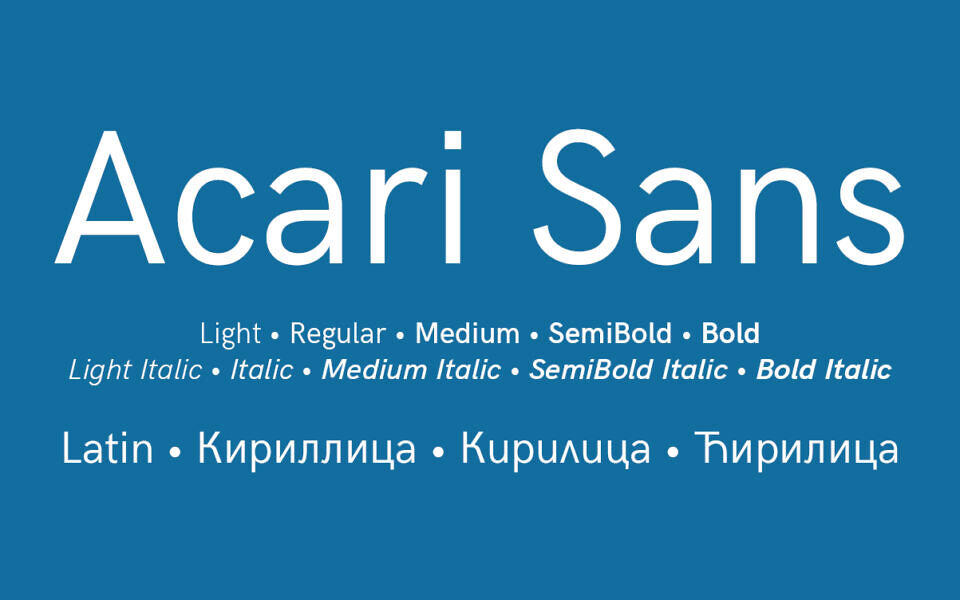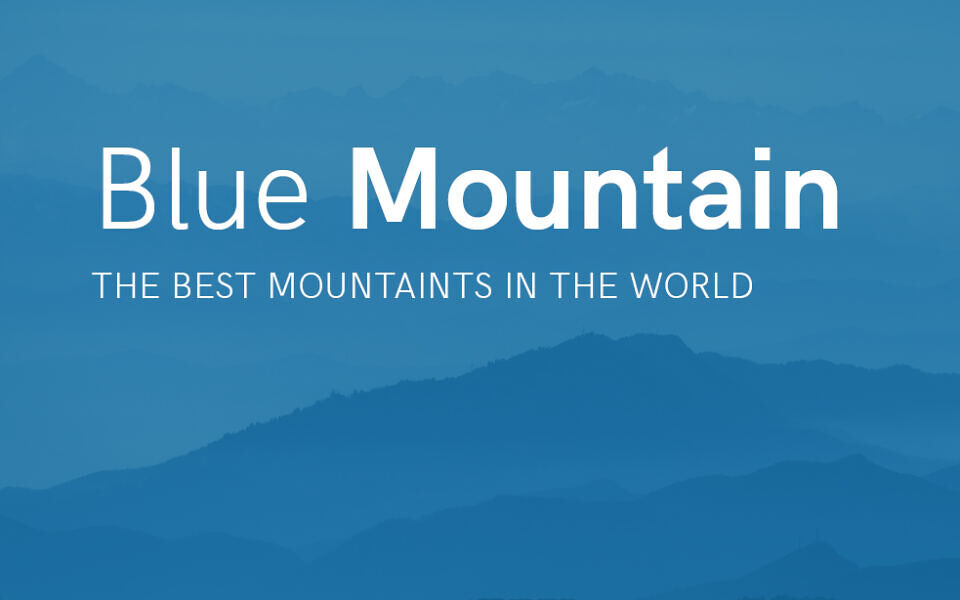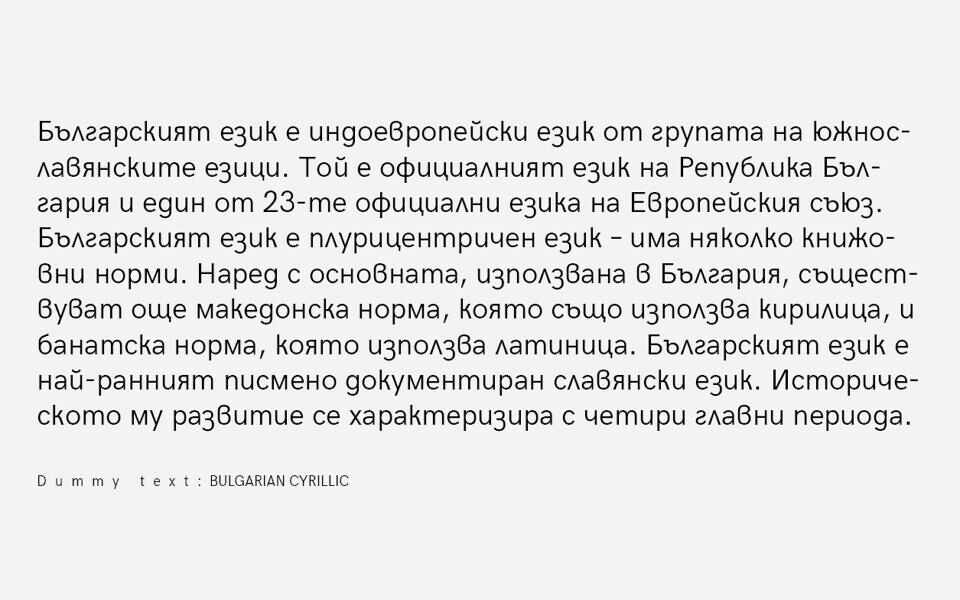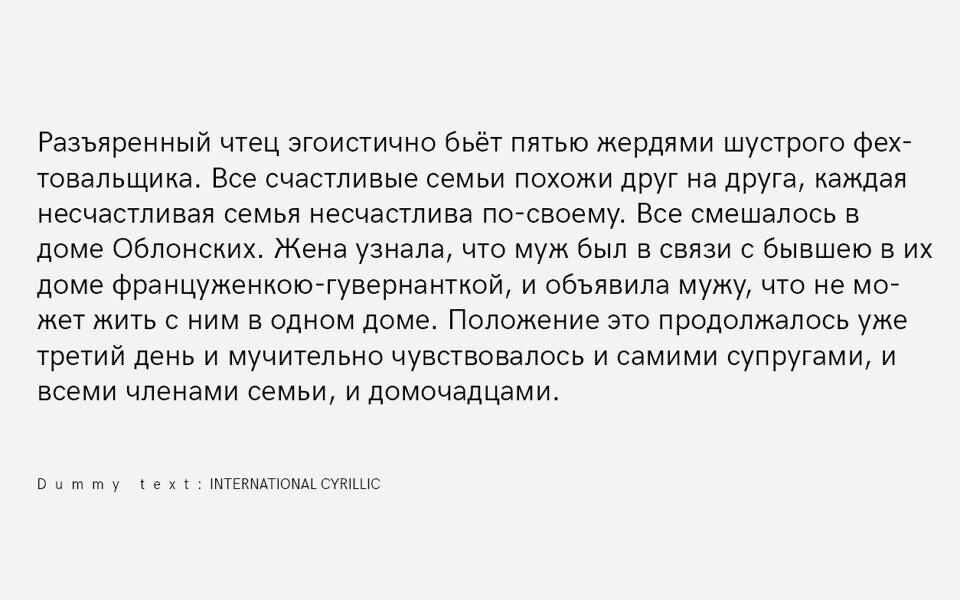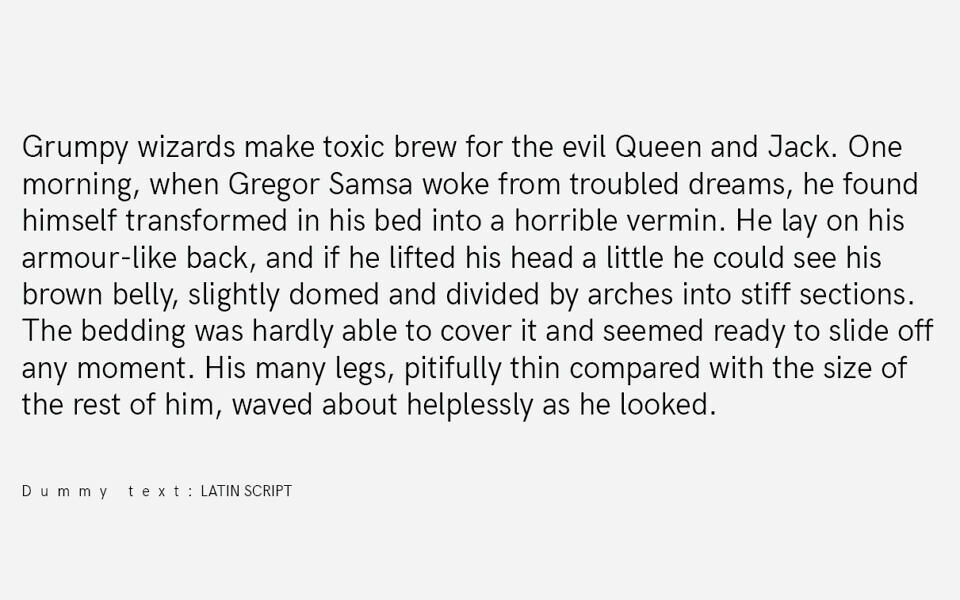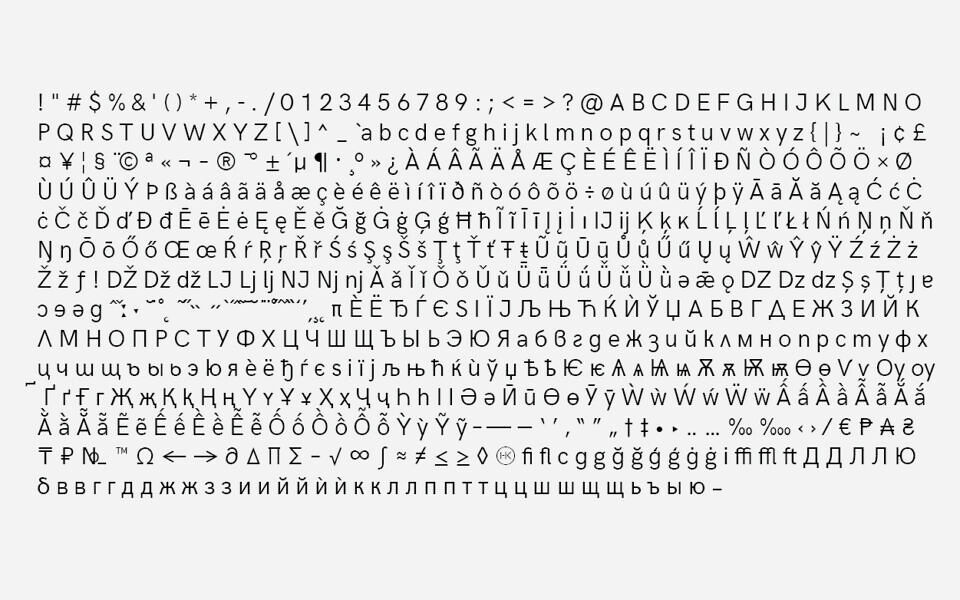
Acari Sans is a versatile grotesque sans-serif family inspired by classic type designs. Its clean shapes, balanced proportions, and excellent readability make it suitable for branding, editorial layouts, websites, interfaces, and everyday text.
The family includes seven weights with matching italics, plus variable font versions, offering plenty of flexibility for both subtle typography and bold visual statements.